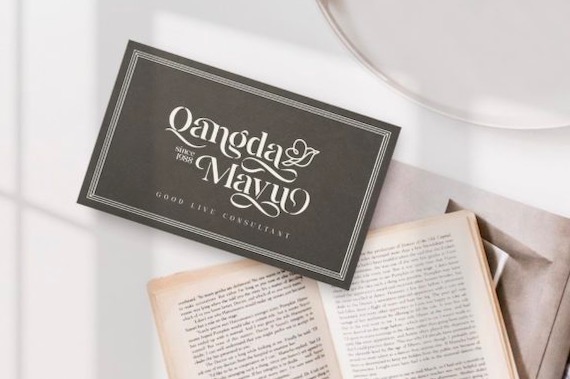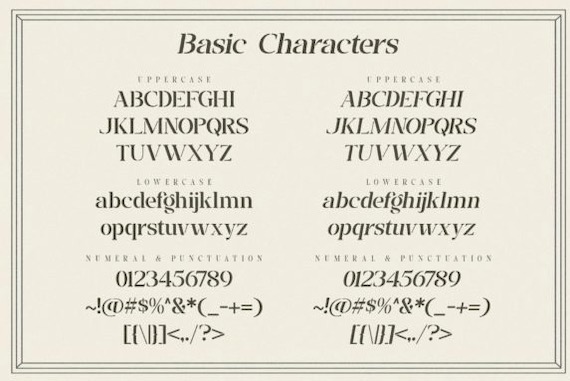
Vangba is a beautiful, stylish, and authentic serif font that was created and shared by Alit Design. It is ideal for marketing, advertising, editorials, branding, and more. It works perfectly for headlines that require tight tracking. This font is PUA encoded which means you can access all of the glyphs and swashes with ease.
Vangba Serif Font